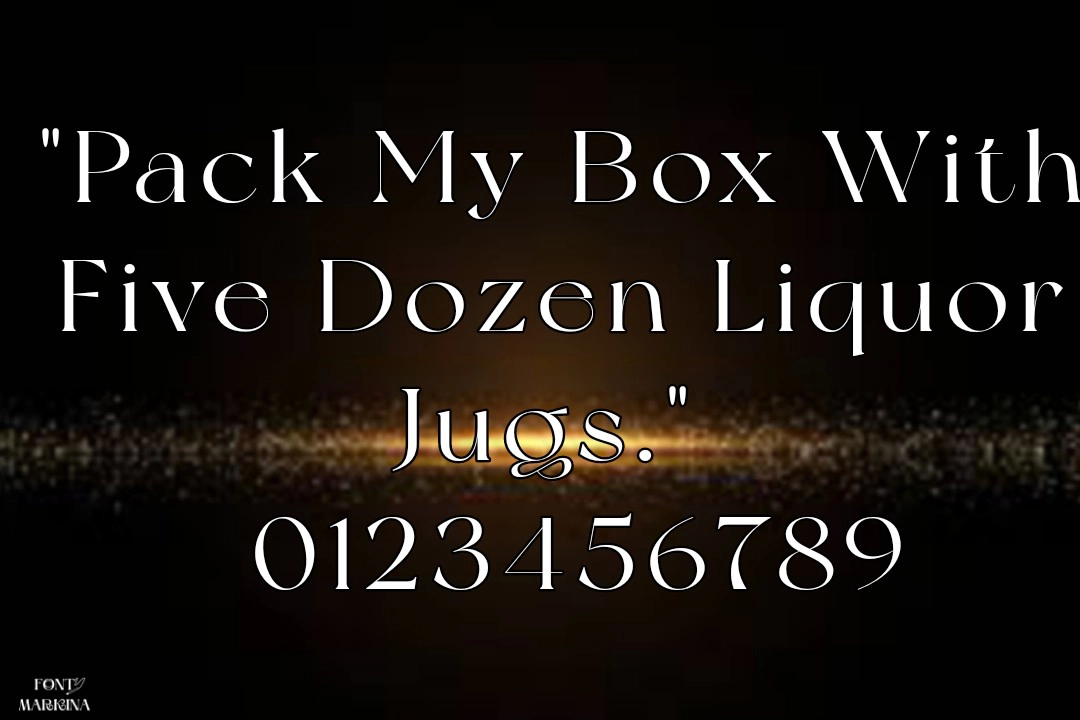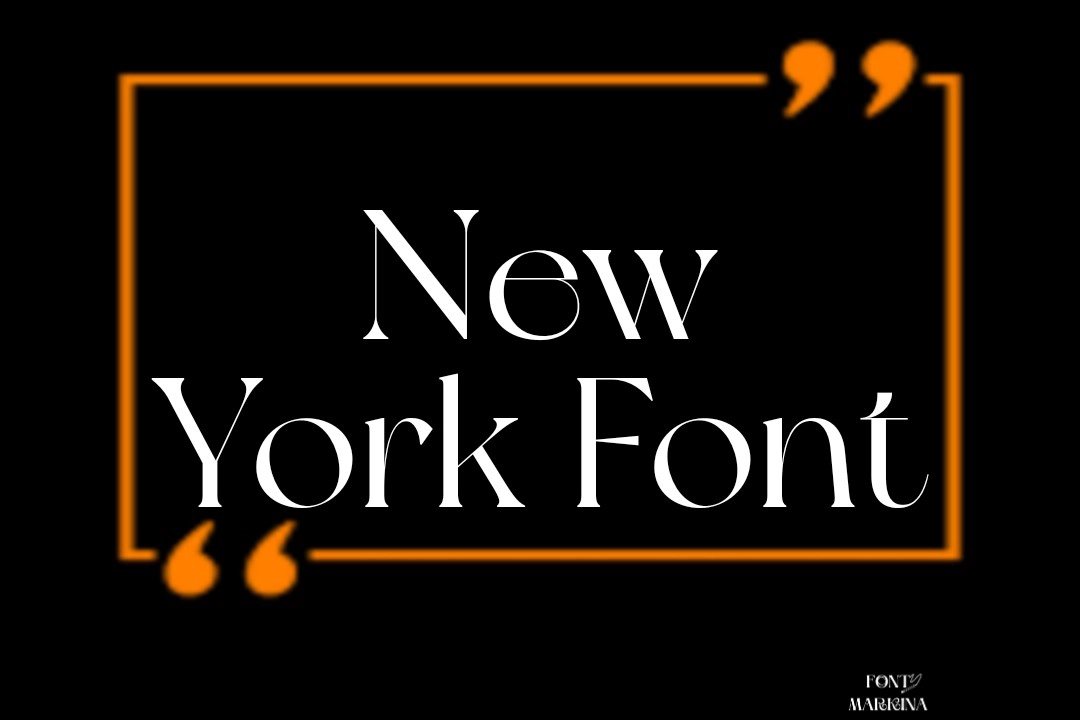
Today we present a famous transitional American serif texture known by the name New York Font. The original creator of this fantastic family is Susan Kare a graphic designer.
This family was developed for a popular American Company named Apple computer. It is a bold font that is obtainable for free in all versions and is also available on all Windows devices. You can also search on google.
The generator tool is very effective for designers to create colorful graphic designs. Its similar texture is the bauer bodoni font is very unique and with clean textures. It will provide more classic results without any type of flaws.
Uses of New York Font
This awesome texture is used for names of popular hotels, cafes, and expensive restaurants. You can also utilize it for different types of text designs and also for art designs. In book covers and magazine designs, this family is mostly use.
In the business and educational sector, the use of New York Font is familiar. If you are an expert developer then you will be able to use this texture in your workplace and get advanced results. It is ideal for clothes designs. You can also use it with the pairing of amsiPro black font which is an alternative to this typography.
| Name | New York Font |
| Designer | Susan Kare |
| Style | Serif |
What type of font is New York Font?
It is a very popular transitional American serif texture. It has an uncluttered texture with definitive styles.
Is New York texture a web safe?
Yes, sure this enormous typeface is suitable and very effective for all web design projects.
Who is the creator of the New York typeface?
Susan Kare is a talented mind graphic designer who creates this font family.